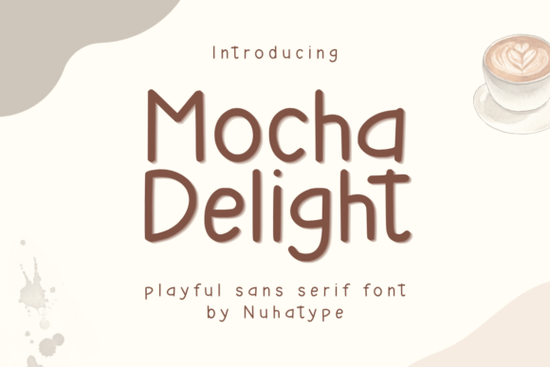
Mocha Delight Font is a versatile and elegant typeface that brings a soft, handcrafted feel to any design project. Its minimalist style and thin strokes make it ideal for a wide range of creative applications, from journaling to print-on-demand products. Whether you're working on a planner, a sticker design, or a custom mug, this font adds a subtle yet sophisticated touch that stands out without overwhelming the overall look.
Designed with simplicity in mind, Mocha Delight Font mimics the natural flow of handwriting while maintaining a clean, modern aesthetic. This balance makes it a great choice for both personal projects and professional use. Its readability ensures that it works well in both digital and physical formats, making it a reliable option for designers, crafters, and small business owners looking for a font that’s as functional as it is stylish.
Why Mocha Delight Font is Perfect for Creative Projects
One of the key strengths of Mocha Delight Font is its adaptability. It works well in various contexts, such as interior design, stationery, and even packaging. The font’s delicate structure allows it to pair beautifully with other typefaces, giving designers more flexibility when creating layouts. For example, using it alongside a bolder sans serif can create a balanced and visually appealing composition.
For those who enjoy DIY crafts, this font is especially useful. It’s perfect for cutting designs with a Cricut machine or for adding personalized touches to tote bags, mugs, and tumblers. Its thin lines ensure that it doesn’t get lost in small spaces, making it ideal for labels, stickers, and other detailed work. Whether you're designing for yourself or selling on platforms like Etsy, Mocha Delight Font can help elevate your creations.
How to Use Mocha Delight Font in Different Designs
When working with Mocha Delight Font, consider the purpose of your design. For instance, if you’re creating a quote or an inspirational message, the font’s elegance will enhance the overall mood. If you’re designing for a product like a notebook or a planner, the font can add a personal and artistic flair without being too flashy.
Try pairing it with other fonts to see what works best. For example, using it with a more structured typeface like Texas Bold can create a nice contrast. Or, if you prefer a more cohesive look, you can use it with similar styles like Creamy Delight. Experimenting with different combinations can help you find the right balance for your specific project.
Best Practices for Using Mocha Delight Font
- Use it for minimalistic designs: Mocha Delight Font shines in simple, clean layouts where it can be the focal point.
- Pair it with bold fonts: Adding a strong, contrasting typeface can highlight the delicate nature of Mocha Delight.
- Test it in different sizes: Make sure it remains readable at various scales, especially if you're using it for print or digital media.
Whether you're a designer, a crafter, or a small business owner, Mocha Delight Font offers a unique way to express creativity. Its combination of elegance and simplicity makes it a valuable addition to any design toolkit. By incorporating this font into your work, you can add a touch of personality and refinement that sets your projects apart.
Take some time to experiment with Mocha Delight Font in your next project. You might find that it becomes one of your go-to choices for adding a soft, artistic element to your designs.